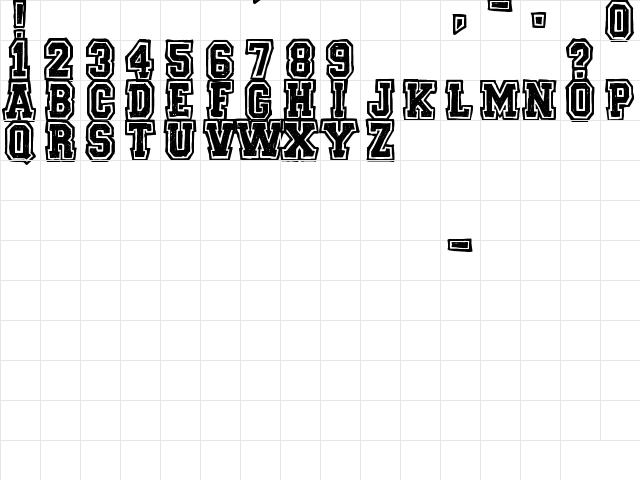
Back to School Regular
Design Context for Back to School Typeface
Back to School is a composed and adaptable typeface that performs quietly and consistently across a wide range of design contexts.
Pro Tip: Pair Back to School with a font of contrasting weight or personality to build a more expressive typographic hierarchy.